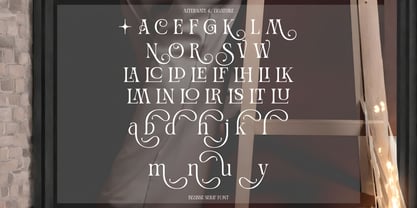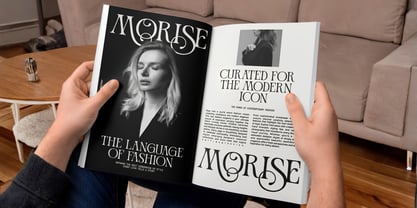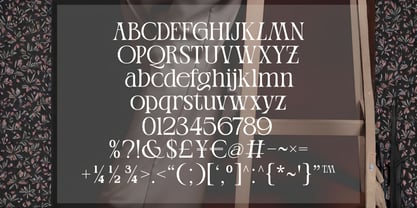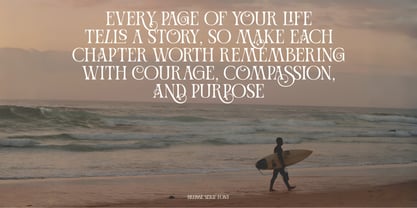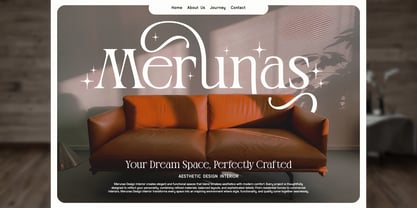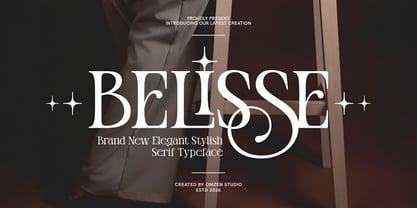
Belisse
by Omzen Type
The Belisse Font Family and published by Omzen Type. Belisse contains 1 styles. More about this family
Belisse is a brand new elegant, stylish serif typeface designed to bring a touch of luxury and class to your creative projects. Characterized by its high-contrast strokes and sophisticated curves, this font is the perfect choice for editorial designs, fashion branding, and high-end advertising.
Whether you are designing a logo for a boutique jewelry brand or creating a layout for a premium fashion magazine, Belisse offers the versatility and aesthetic appeal needed to stand out. It features a wide array of modern ligatures and unique alternates, allowing you to create truly custom typography for every project.